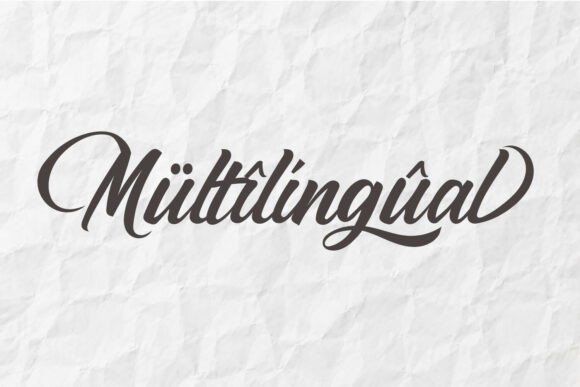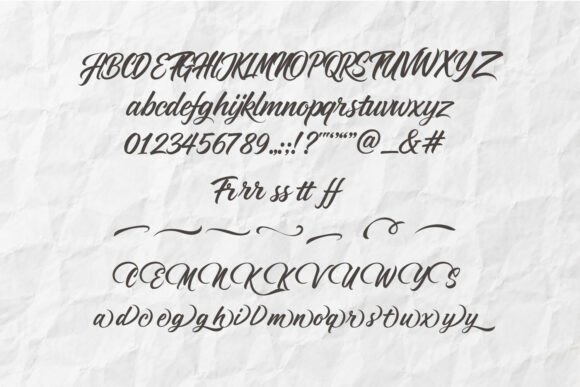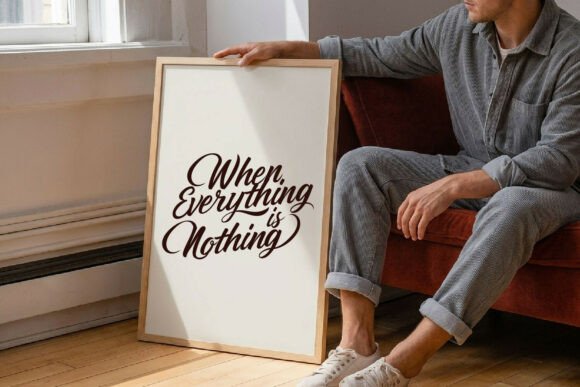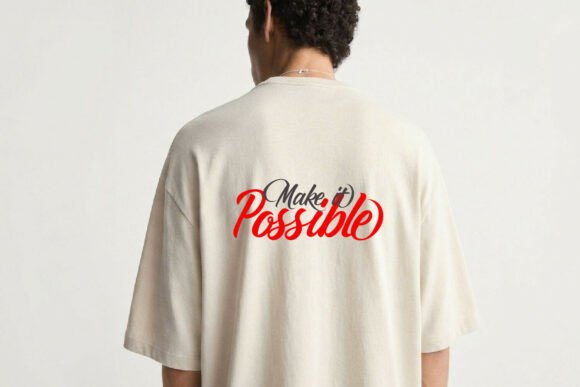
The Dream Nothing Less Font: Elevate Your Designs with Elegance
Have you ever been in the middle of a design project, and suddenly, it feels like something’s missing? You’re not quite sure what it is, but you know it’s not quite right. I’ve been there too! I was working on a wedding stationery set for a client, and I just couldn’t find the perfect font to capture the elegance and sophistication she wanted. That’s when I stumbled upon the Dream Nothing Less font, and it completely transformed my design.
A Personal Review: What I Love About Dream Nothing Less
I’m obsessed with the Dream Nothing Less font, and here’s why:
- ✨ Exquisite craftsmanship: This font is carefully crafted with a natural flow and artistic touch, making it feel like a true piece of art.
- ✅ Elegant and sophisticated: The font exudes a sense of luxury and refinement, perfect for high-end designs.
- 💫 Versatile: It works beautifully for logos, wedding stationery, social media graphics, quotes, and branded merchandise.
- 🎨 Expressive: The font has a unique character that adds a touch of personality to any design.
While I adore the Dream Nothing Less font, there are a few things to keep in mind:
- 🤔 Legibility at small sizes: Like many script fonts, it can be a bit tricky to read at very small sizes. Make sure to test it in your design to ensure it’s legible.
- ⚠️ Kerning and spacing: Some users have reported issues with kerning and spacing. However, this can often be adjusted in design software.
The Story Behind Dream Nothing Less
Legend has it that the creator of Dream Nothing Less was inspired by the flowing scripts of 18th-century calligraphy. They spent countless hours perfecting the font, pouring their heart and soul into every detail. The result is a truly stunning piece of typography that elevates any design.
| Is Dream Nothing Less suitable for body text? | While it’s a beautiful font, Dream Nothing Less is best suited for headlines, titles, and short text. For body text, a more legible font might be a better choice. |